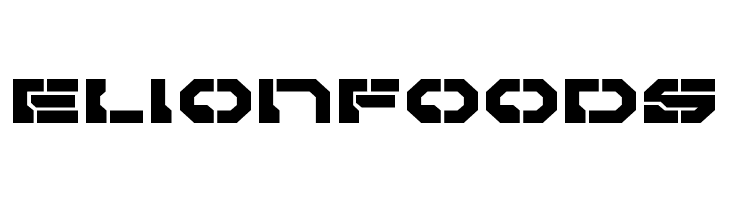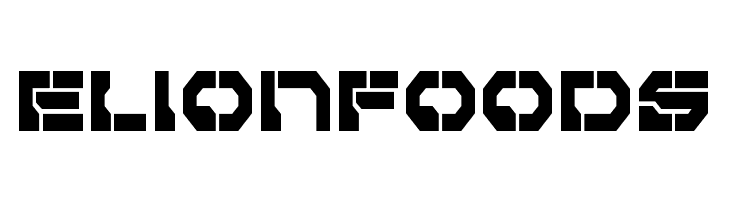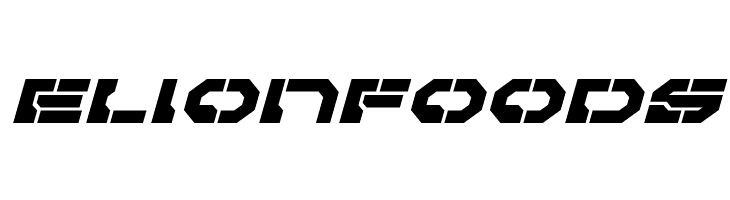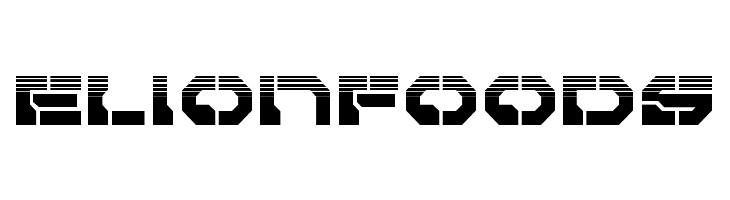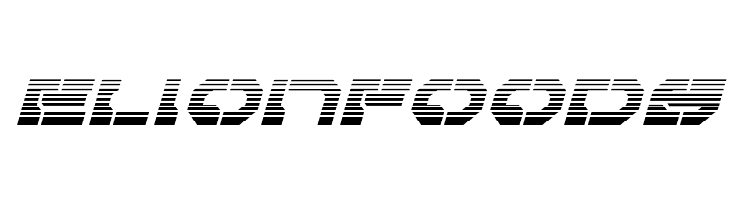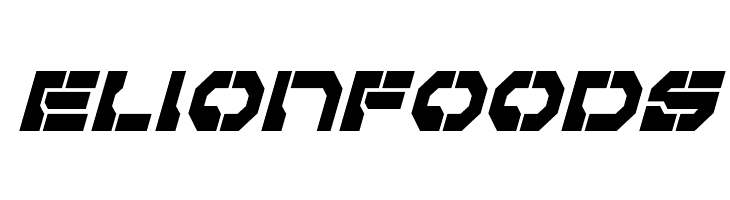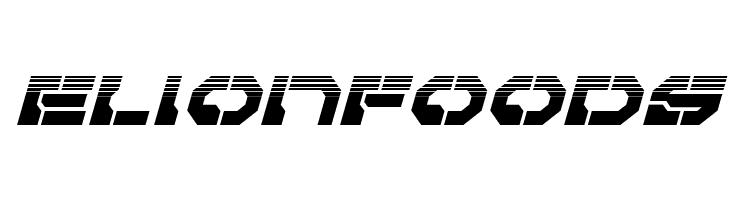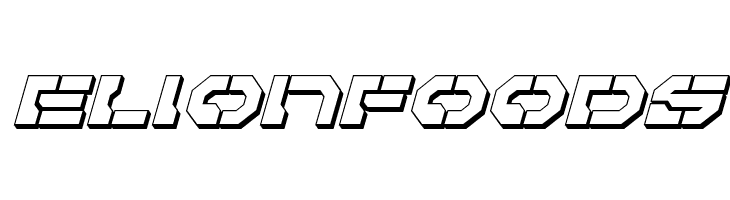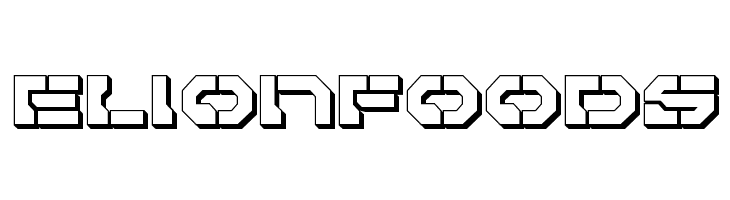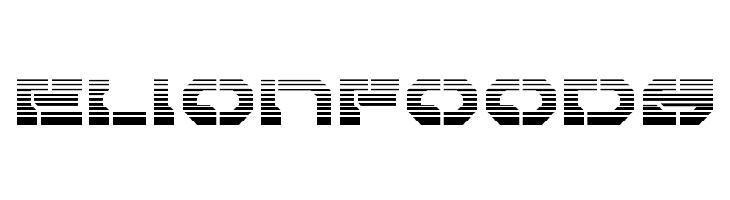
A bold, geometric font with strong, angular lines and a blocky appearance.
A bold, italicized font with geometric and dynamic characteristics.
A bold, futuristic font with geometric, stencil-like characters.
A bold, geometric font with a 3D effect and futuristic style.